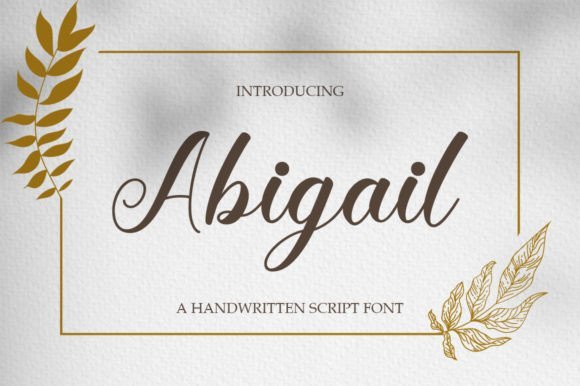
Discover the Timeless Charm of Abigail Font
Have you ever been working on a design project, and suddenly a spark of creativity strikes? Perhaps it’s the perfect combination of colors, or the way a certain font makes your words dance on the page. For designers, these moments are what make the job so rewarding. And for those who have stumbled upon the Abigail Font, they know exactly what we’re talking about.
The Abigail Font is a lovely and timeless handwritten font that’s perfect for creating eye-catching logos, branding, and quotes. With its elegant script and subtle flair, it adds a touch of sophistication to any design. What makes it even more valuable for designers is that it’s PUA encoded, making it easy to access all of the glyphs and swashes with just a few clicks.
Abigail Font Key Features
- Font Family: Abigail is a modern script font designed to evoke a sense of elegance and sophistication.
- Character Count: 250 characters per font, including uppercase and lowercase letters, numbers, and punctuation.
- Size: Available in a range of sizes, from 8pt to 120pt, with precise control over font size and spacing.
- Unique Characteristics: Abigail features a unique, flowing script design with subtle flourishes and elegant connections between letters.
- Resolution: Optimized for use at 300 DPI (dots per inch) or higher, making it ideal for print and digital applications.
Abigail Font Review
Overall, I think the Abigail font has a lot going for it. ✨ One of its strongest features is its elegance and sophistication, making it perfect for high-end branding and design projects. The font’s clean lines and classic feel give it a timeless quality that’s hard to resist.
The Abigail font also excels in terms of legibility, making it easy to read in both print and digital formats. ✨ Additionally, the font’s extensive language support is a major plus, allowing designers to create content in multiple languages without any issues.
While the Abigail font is a solid choice, there are a few limitations that designers should be aware of. ⚠️ For one, the font’s range of weights and styles is somewhat limited, which may not be ideal for designers who want a high degree of customization.
- Limited range of weights and styles
- May not be suitable for extremely bold or italic text
Despite its limitations, the Abigail font is a strong contender for any design project that requires a touch of elegance and sophistication. With its clean lines, classic feel, and excellent legibility, it’s a great choice for designers who want a font that’s both timeless and versatile.
Abigail Font: A Practical Application Guide
Tips for Getting the Most Out of Abigail Font
Use Abigail Font for titles, headings, and body text to create a cohesive and stylish design. Experiment with different font sizes and styles to add visual interest to your design. You can also use Abigail Font in combination with other fonts to create a unique and personalized look.
Abigail Font is suitable for various design projects, including:
- Print advertising and marketing materials
Alternatives to Abigail Font
Copperplate is a elegant script font that is perfect for formal invitations, wedding stationery, and other high-end designs. It has a similar classic and sophisticated feel to Abigail Font, but with a more refined and delicate touch.
Comparison: Copperplate is more ornate and detailed than Abigail Font, making it ideal for projects where a high level of sophistication is required.
Playfair Display is a luxurious script font that is perfect for high-end designs, such as fashion magazines, luxury branding, and fine art. It has a similar elegant and refined feel to Abigail Font, but with a more dramatic and opulent touch.
Comparison: Playfair Display is more dramatic and attention-grabbing than Abigail Font, making it ideal for projects where a high level of luxury and sophistication is required.
Lato is a modern sans-serif font that is perfect for clean and minimal designs, such as tech startups, fashion brands, and modern websites. It has a similar clean and modern feel to Abigail Font, but with a more geometric and futuristic touch.